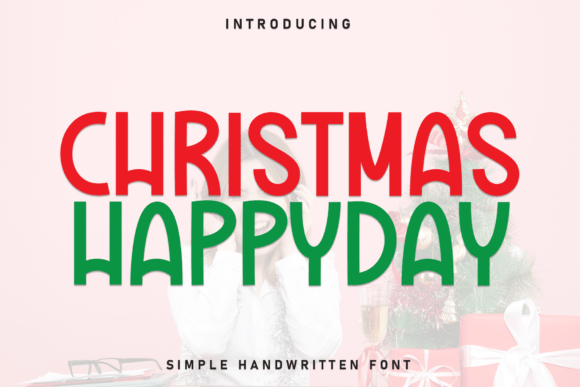
Christmas Happyday Font
It’s early December, and the team is finalizing the visuals for a holiday-themed product launch. The campaign needs to feel festive, engaging, and instantly recognizable across all platforms. As I scroll through mockups on my phone, one thing becomes clear: the font choice will make or break the message. That’s when I reach for Christmas Happyday—a display font that brings instant holiday cheer to your designs with its bold, rounded forms and friendly, approachable style.
Christmas Happyday for Instagram Posts and Social Media Graphics
Instagram is where first impressions matter most. Every post needs to stand out in a feed full of content. Christmas Happyday works wonders here. Its playful yet professional look makes it ideal for seasonal posts, whether it’s a teaser for a limited-time offer or a festive quote graphic. The font’s rounded edges add warmth, while the bold weight ensures visibility even in small thumbnails.
When designing for Instagram stories, I often pair Christmas Happyday with a clean sans serif for body text. This contrast keeps the layout balanced without losing the holiday spirit. The font’s legibility on mobile screens is impressive—whether it’s a dark background or a light one, the text remains sharp and easy to read.
Christmas Happyday for YouTube Thumbnails and Reels Covers
YouTube thumbnails are a critical part of video marketing. They need to catch attention quickly and communicate the video’s purpose. Christmas Happyday is perfect for this. Its bold, rounded style gives a visual punch that stands out among other thumbnails. I’ve used it for holiday-related videos, like “5 Tips for a Stress-Free Holiday Season,” and it immediately conveys the theme without needing extra graphics.
For reels covers, the font adds a sense of fun and familiarity. It’s great for promotional content, especially when paired with a simple icon or a festive color palette. The font’s friendly personality helps build a connection with the audience before they even watch the video.
Christmas Happyday for Email Banners and Web Headers
Email marketing is all about clarity and impact. A well-designed email banner can increase open rates and drive engagement. Christmas Happyday is a strong choice for headers and callout text. Its boldness ensures the message is clear, even in a cluttered inbox. I’ve used it for holiday promotions, and the font’s charm makes the subject line more inviting.
On web pages, the font works as a header for landing pages, promo sections, or blog posts. It’s not just about aesthetics—it’s about creating a visual hierarchy that guides the reader. Christmas Happyday’s friendly style pairs well with modern typography systems, making it versatile for both editorial and commercial design projects.
Christmas Happyday for Digital Ads and Online Shop Campaigns
Digital ads demand immediate recognition. Whether it’s a Google ad, a Facebook carousel, or a social media sponsored post, the font needs to be legible at a glance. Christmas Happyday delivers. Its rounded, bold form makes it highly readable, even in fast-scrolling feeds. I’ve used it for online shop campaigns, and the font’s approachable style helped create a sense of trust and excitement around the products.
For e-commerce, the font also works well in banners, product titles, and promotional labels. It adds a touch of personality that can differentiate a brand from competitors. Plus, its compatibility with multiple file formats and multilingual support makes it a practical choice for global campaigns.
Christmas Happyday for Branding and Promotional Content Sets
Branding is more than just a logo—it’s about consistency across all touchpoints. Christmas Happyday is a valuable asset for maintaining a cohesive look in promotional content sets. From Pinterest pins to webinar banners, the font ensures a unified visual language that reinforces brand identity.
I’ve used it in a series of branded templates for a client’s holiday campaign. The font’s versatility allowed it to work in different contexts, from short headlines to decorative titles. Its friendly, approachable style made the entire campaign feel more relatable and authentic.
Christmas Happyday for Webinar Promotions and Course Launches
Webinar promotions require a balance between professionalism and approachability. Christmas Happyday strikes that balance perfectly. It’s ideal for headlines, registration buttons, and promotional banners. The font’s bold, rounded style gives a sense of energy and positivity, which is essential for attracting attendees.
For course launches, the font adds a personal touch. It’s great for title cards, promotional emails, and social media teasers. Its readability on digital screens makes it a smart choice for any content that needs to be seen quickly and clearly.
Christmas Happyday for Display Typography and Logo Design
Display fonts are all about impact. Christmas Happyday excels in this area. Its bold, rounded forms make it ideal for logos, event titles, and creative displays. I’ve used it for a holiday event logo, and the font’s charm added a unique personality that resonated with the audience.
As a display font, it’s best suited for short headlines, callouts, and decorative titles. It doesn’t work as well for long paragraphs, but that’s expected. Its strength lies in its ability to capture attention and convey a message in a visually appealing way.
Christmas Happyday for Packaging and Merchandise Design
Packaging design is another area where Christmas Happyday shines. Whether it’s a gift box, a product label, or a branded t-shirt, the font adds a festive touch that feels intentional and high-quality. Its legibility on small surfaces makes it a practical choice for merchandise.